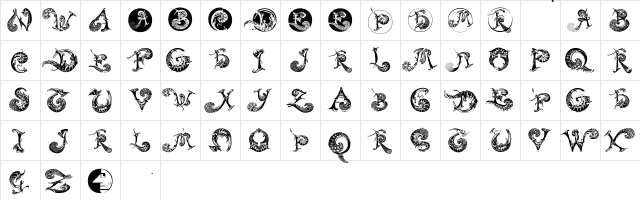
SchnoerkelCaps Regular
Design Context for SchnoerkelCaps Typeface
SchnoerkelCaps is a composed and adaptable typeface that performs quietly and consistently across a wide range of design contexts.